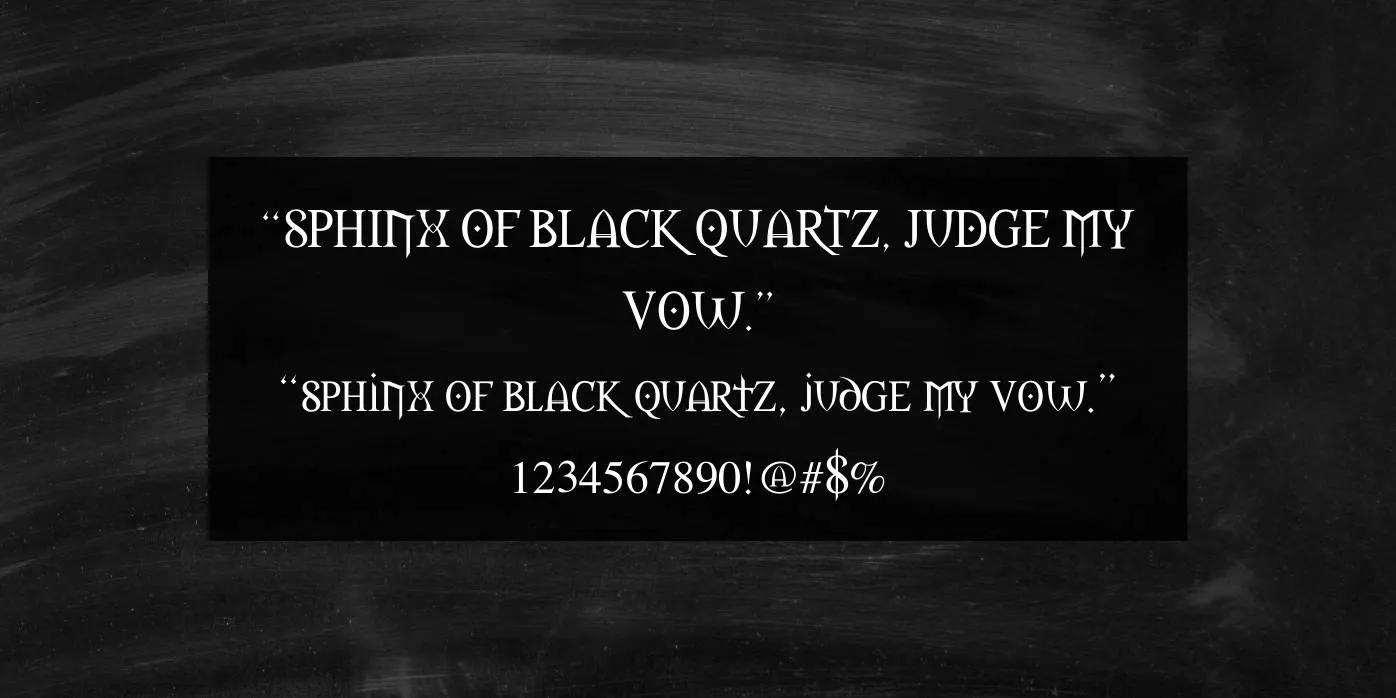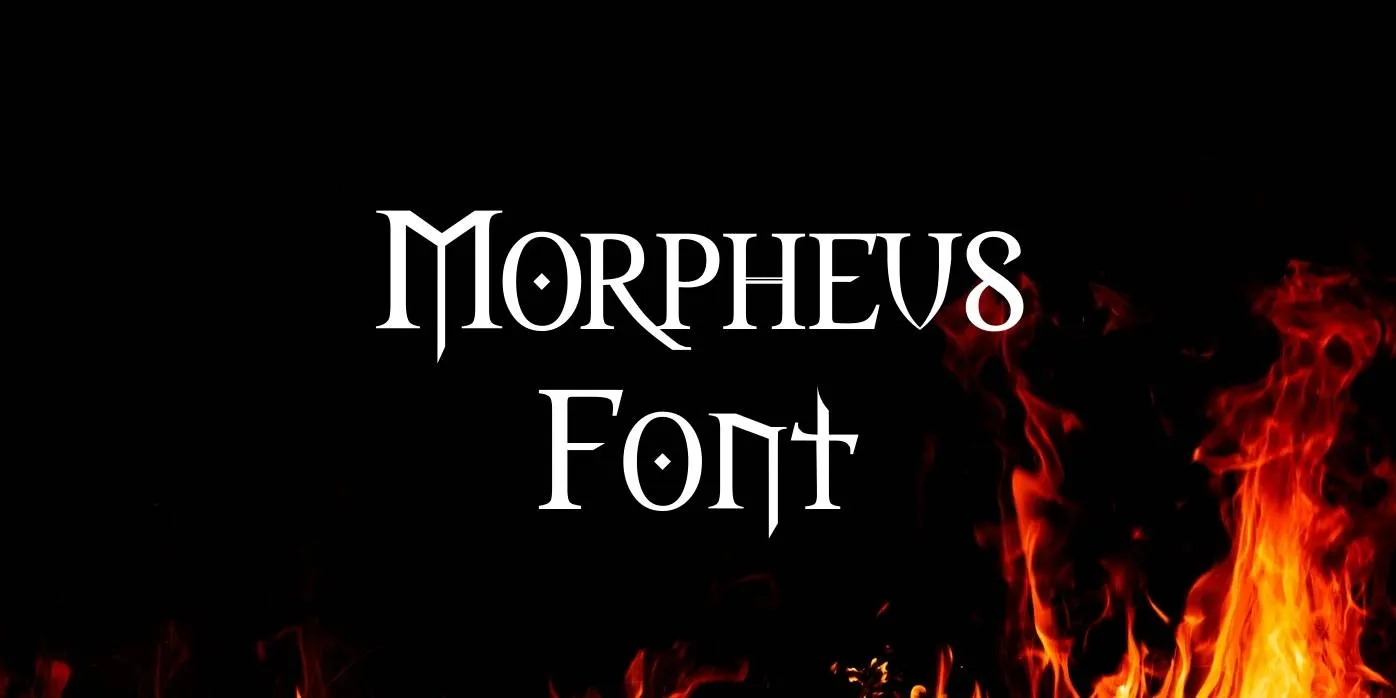
Morpheus Font
Morpheus Font is a famous and popular typeface that belongs to the fancy family. This typeface was designed by Kiwi Media. This stunning font is available in two weights: Regular and Bold. The Regular weight is ideal for body copy, while the Bold weight is perfect for headlines.
This gorgeous font also includes a set of discretionary ligatures that help create unique looks for your text.  This classy typeface has a unique and stylish look that helps it stand out from other fonts in the same family. This awesome font is perfect for headlines, branding, and packaging. It is best for Canva and Adobe Photoshop. Another similar font which is bosox font is perfect for different designs.